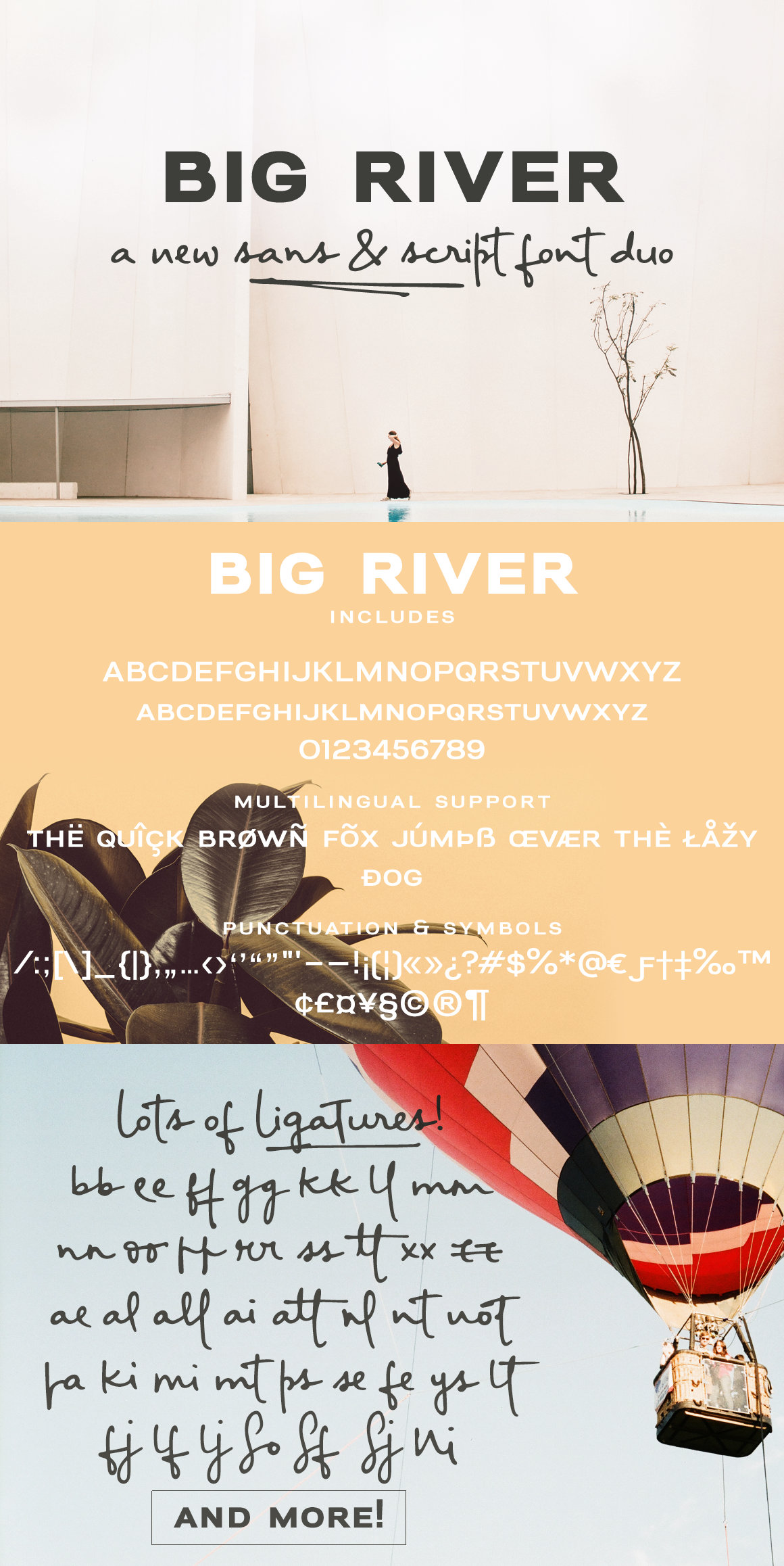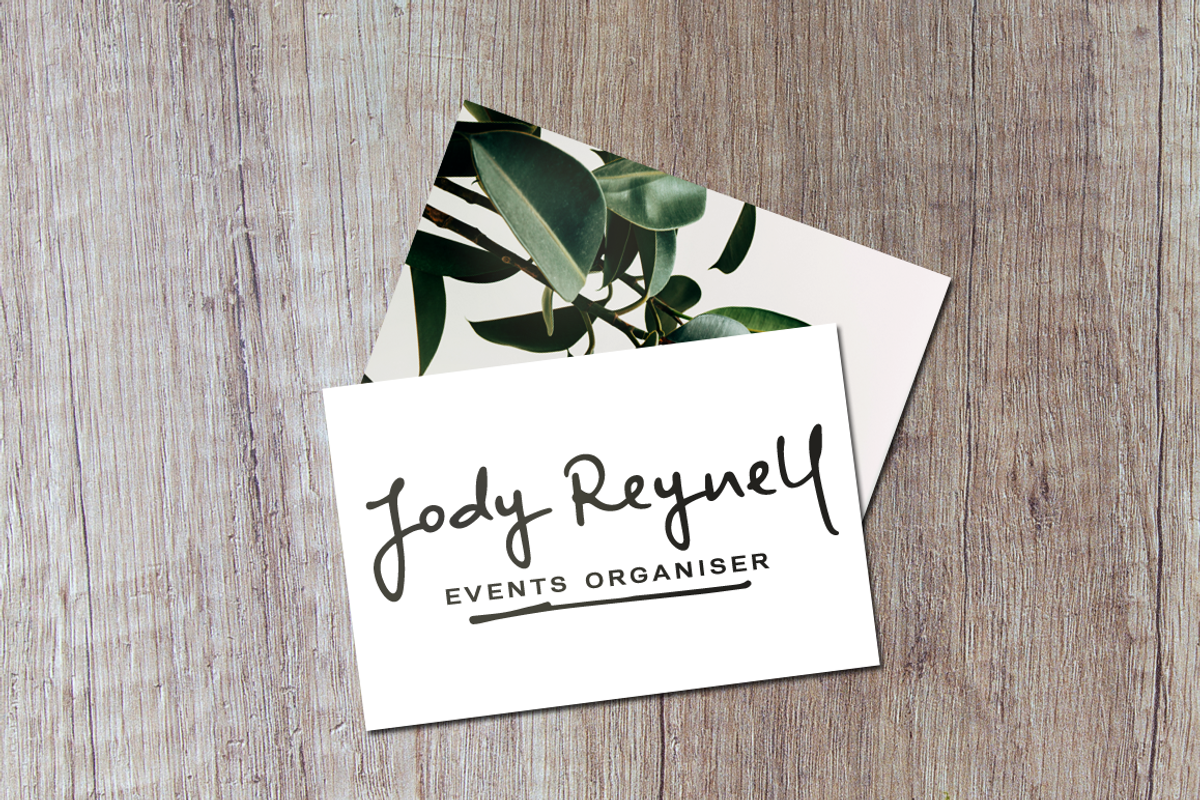
Big River sans and script font duo
Big River is an elegant sans serif and handwritten font duo with lots of extras. It includes:
- A wide sans serif font in three weights (with caps and small caps);
- A handwritten font with a regular and slant version, and bonus swashes to give your designs a more natural look.
Each font includes:
- A-Z, a-z, 0-9, accents, punctuation and symbols
- Contextual alternates (script)
- Ligatures (script)
This font duo makes it so easy to achieve beautiful and eye-catching designs, and is perfect for both short and longer texts. It can be used for making postcards and notes, creating logotypes, social media posts, branding and packaging, etc.